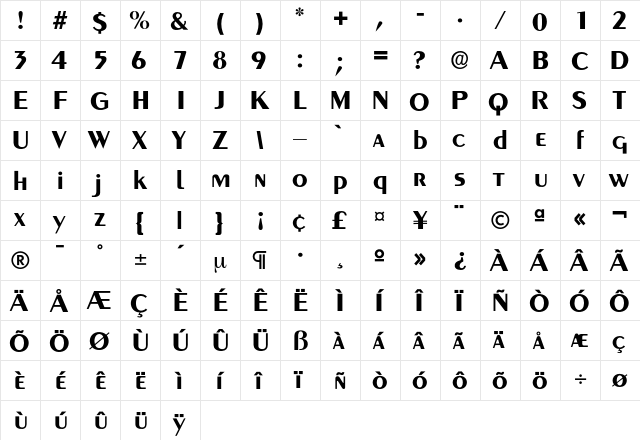
GreyhoundBold Regular
Design Context for GreyhoundBold Typeface
GreyhoundBold is a composed and adaptable typeface that performs quietly and consistently across a wide range of design contexts. The heavy weight commands attention and anchors typographic hierarchies.